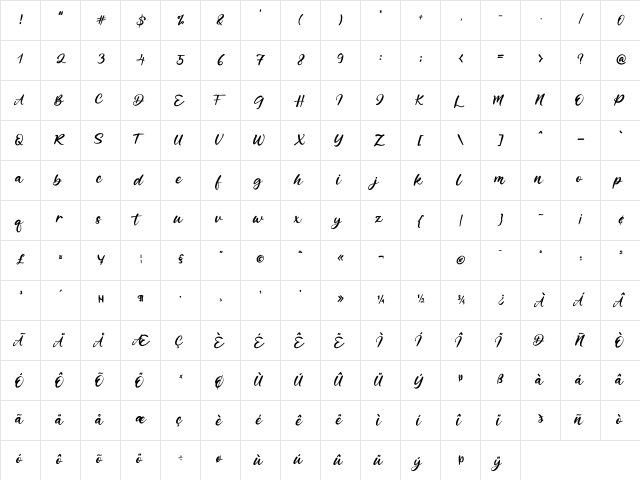
Bobbey Regular Font Preview
Bobbey Regular
Bobbey Regular Font Details
| Foundry | Kong Font |
| Designer | Typeface騋ong Font).2020 |
Design Context for Bobbey Typeface
Bobbey is a composed and adaptable typeface that performs quietly and consistently across a wide range of design contexts.